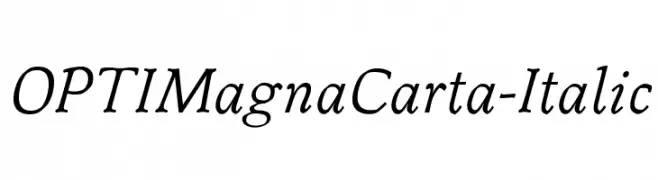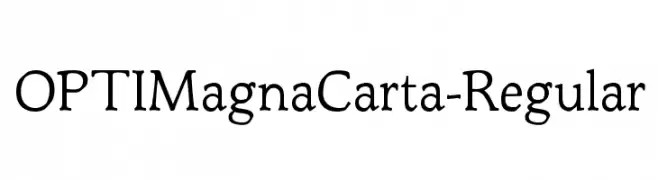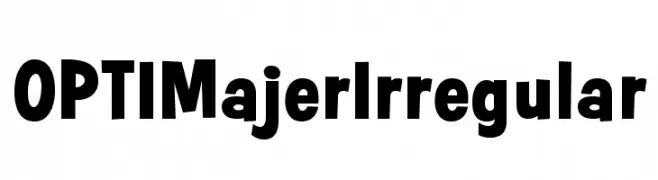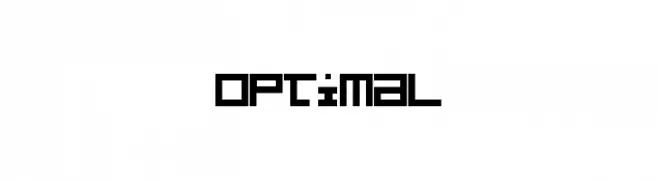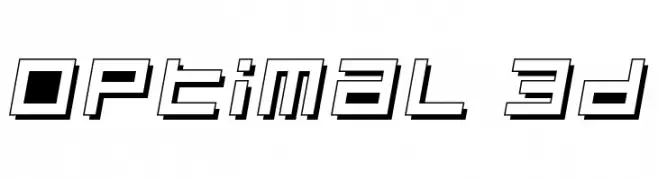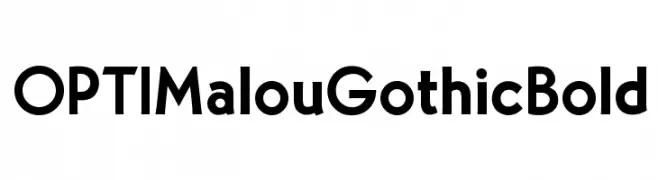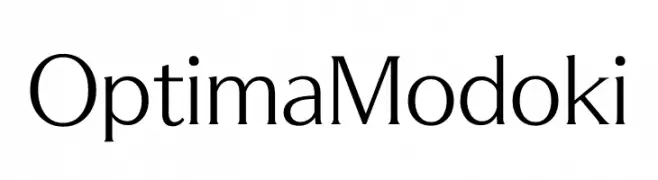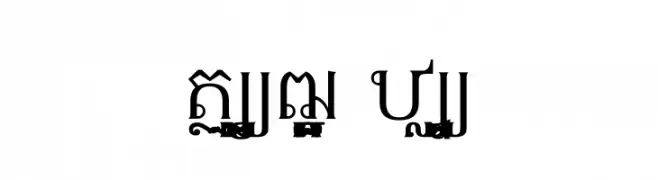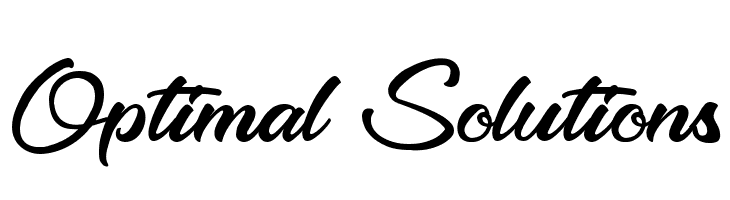
A classic, elegant italic font with refined serifs and a sophisticated appearance.
A classic serif font with elegant strokes and refined proportions.
A bold, playful font with irregular, dynamic letterforms.
A bold, geometric font with a digital, pixelated style.
A bold, 3D geometric font with a modern, futuristic style.
A graceful script font with flowing, connected strokes and decorative flourishes.
A bold, modern sans-serif font with clean lines and strong presence.